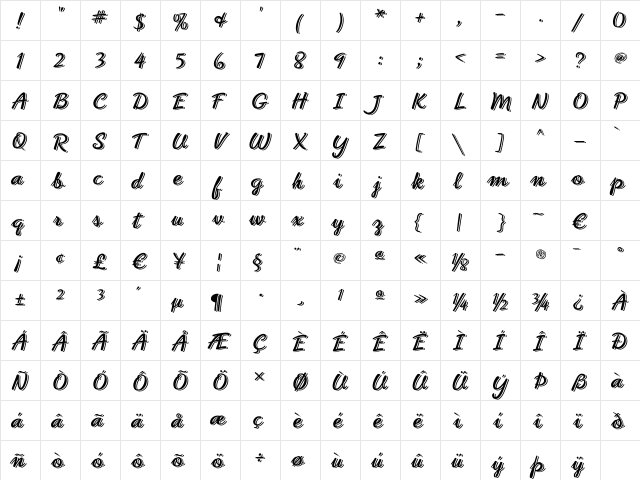
PhoenixScript Upr 'Shadowed' Regular
Design Context for PhoenixScript Upr 'Shadowed' Typeface
PhoenixScript Upr 'Shadowed' brings a calligraphic fluidity to the page — its connecting strokes and expressive curves give it an unmistakably human quality.
Font Pairing: Combine PhoenixScript Upr 'Shadowed' with a simple geometric sans for maximum contrast — the tension between flowing curves and clean structure is a classic typographic pairing.
Pro Tip: Use PhoenixScript Upr 'Shadowed' for short runs of text — names, titles, or taglines. Extended body copy in script faces tires the eye quickly.